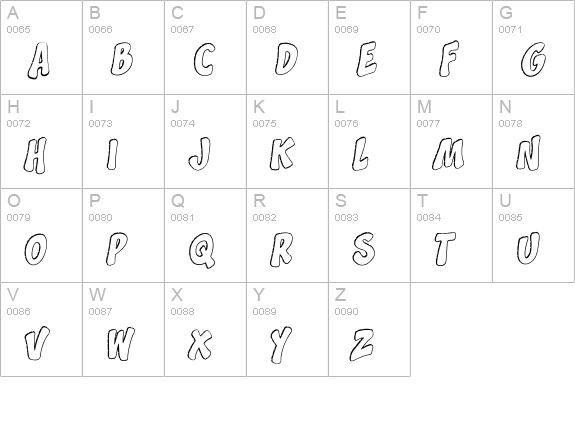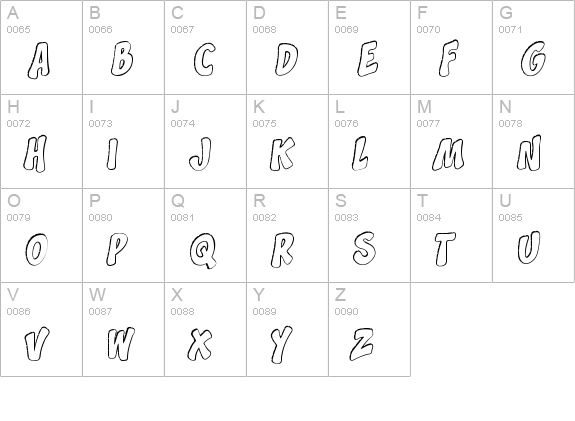
CCSplashdown Font Details
Introducing CCSplashdown font, a dynamic and playful typeface that will make your designs pop with energy and creativity. With its bold strokes and quirky shapes, CCSplashdown is perfect for adding a splash of personality to your projects. Whether you're designing posters, logos, or social media graphics, this font is sure to make a statement. And the best part? CCSplashdown is completely free for personal and commercial use. You can download this versatile font at FontsMarket.com and start using it in your projects right away. So why wait? Give your designs a fresh and exciting look with CCSplashdown font today!